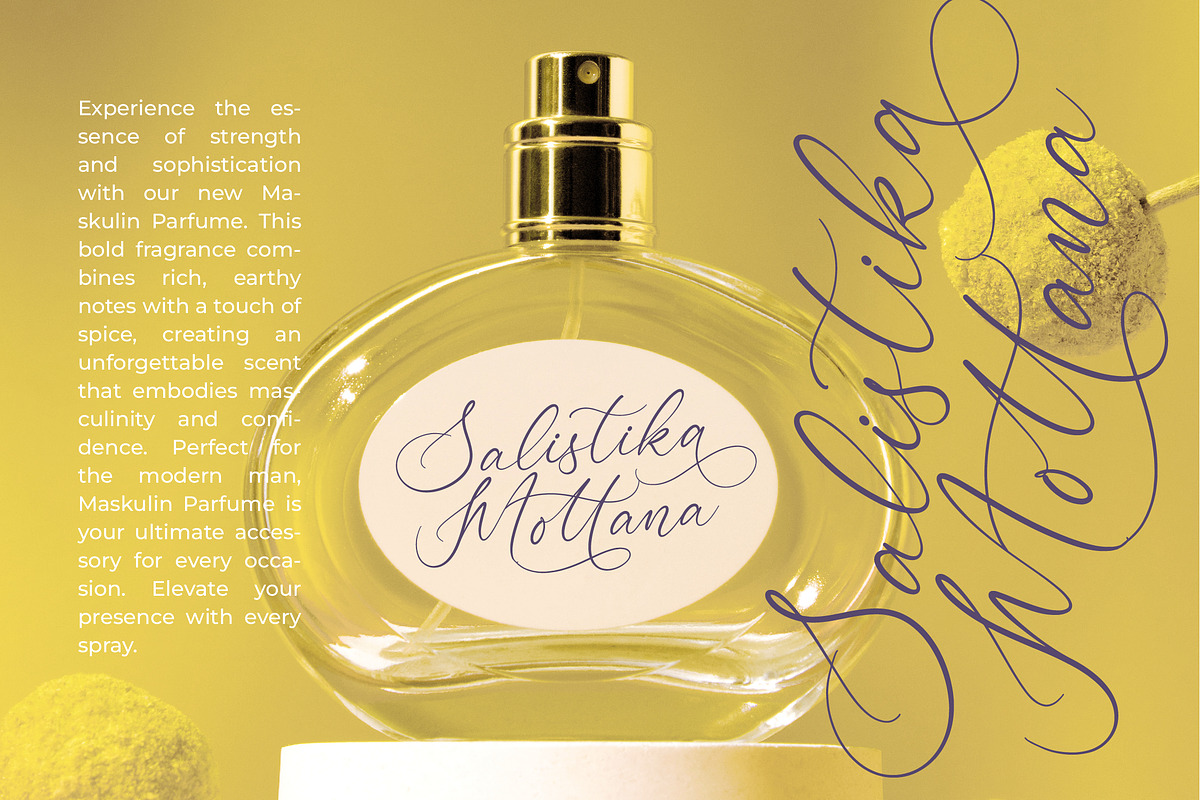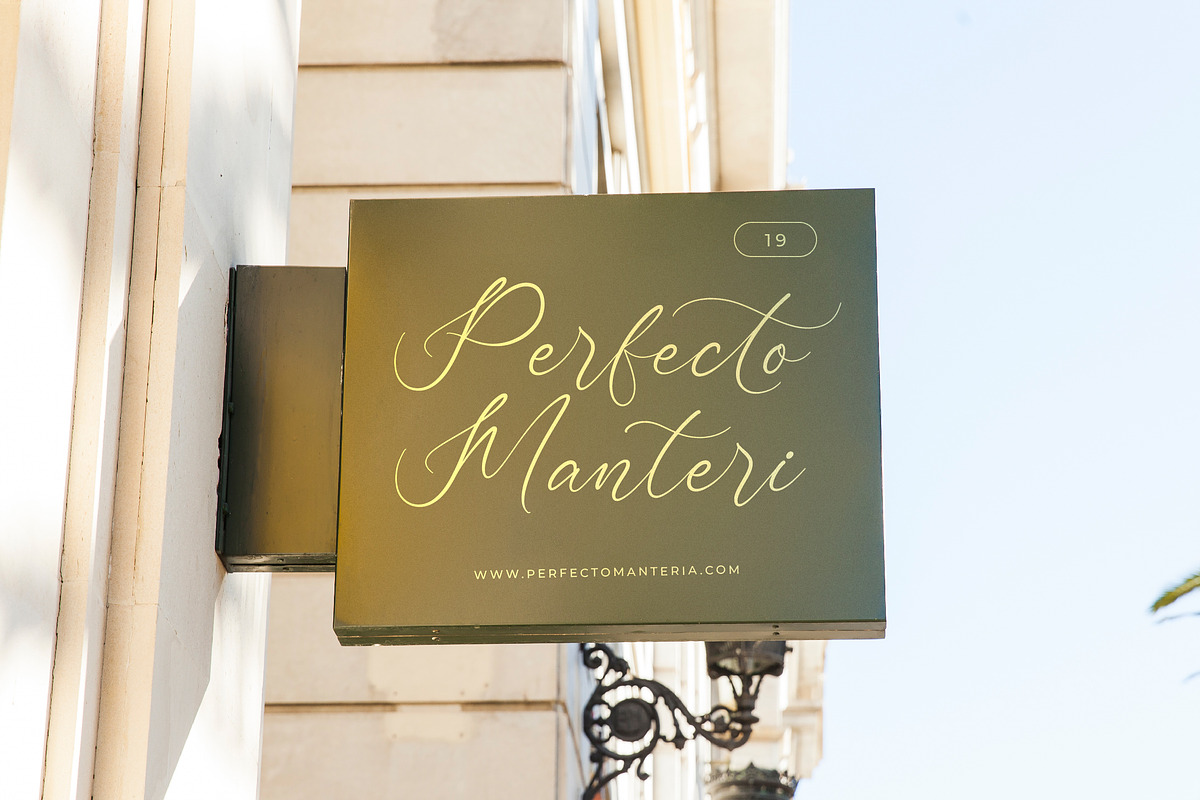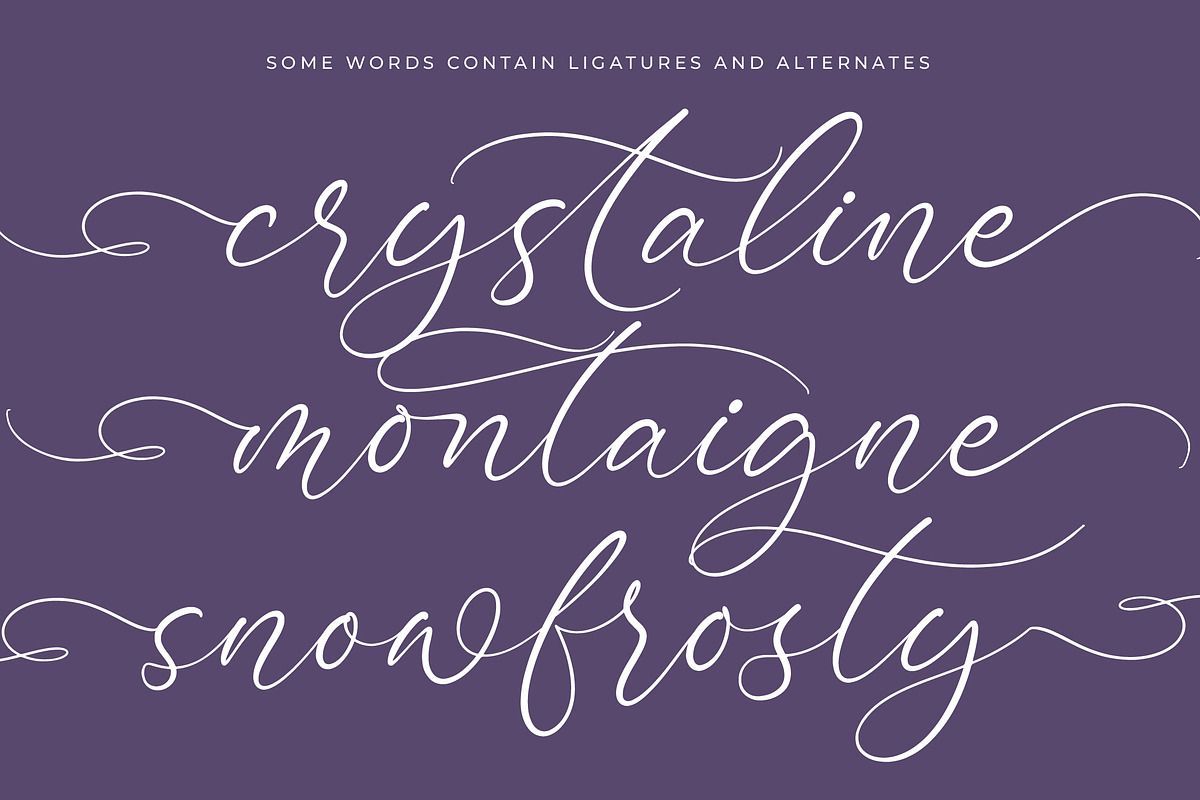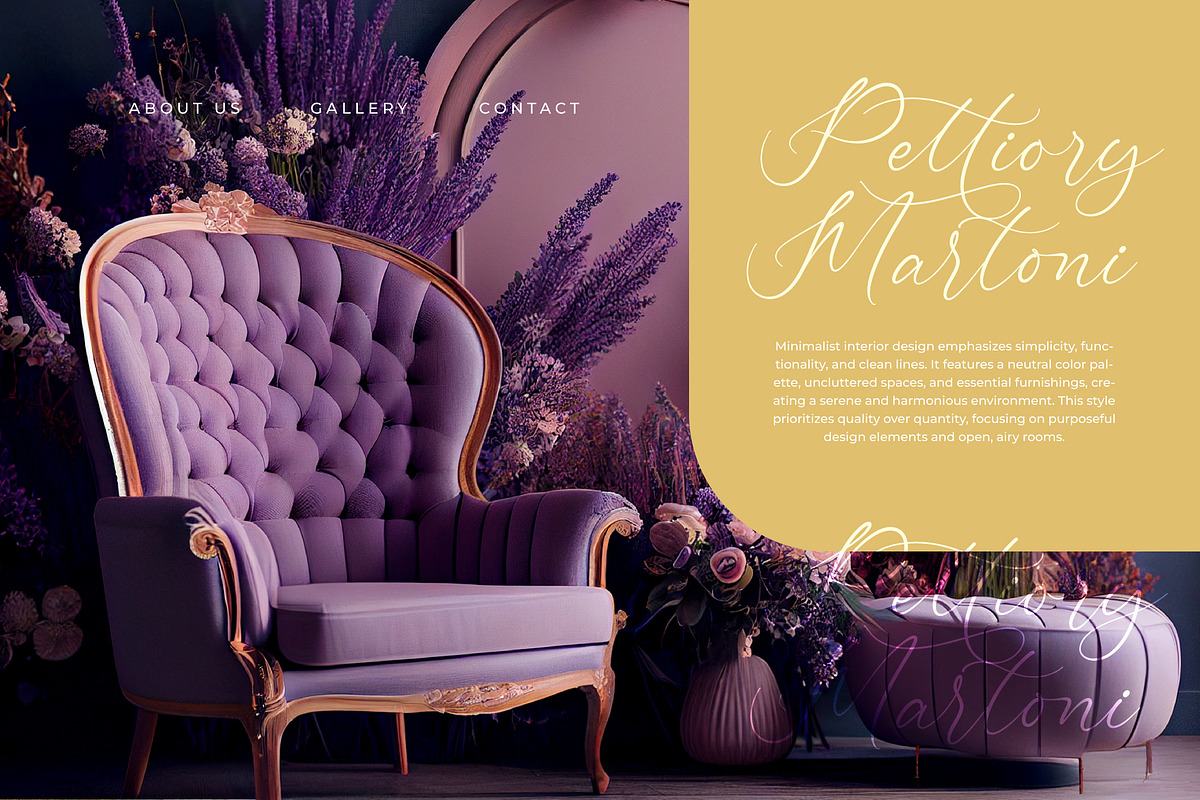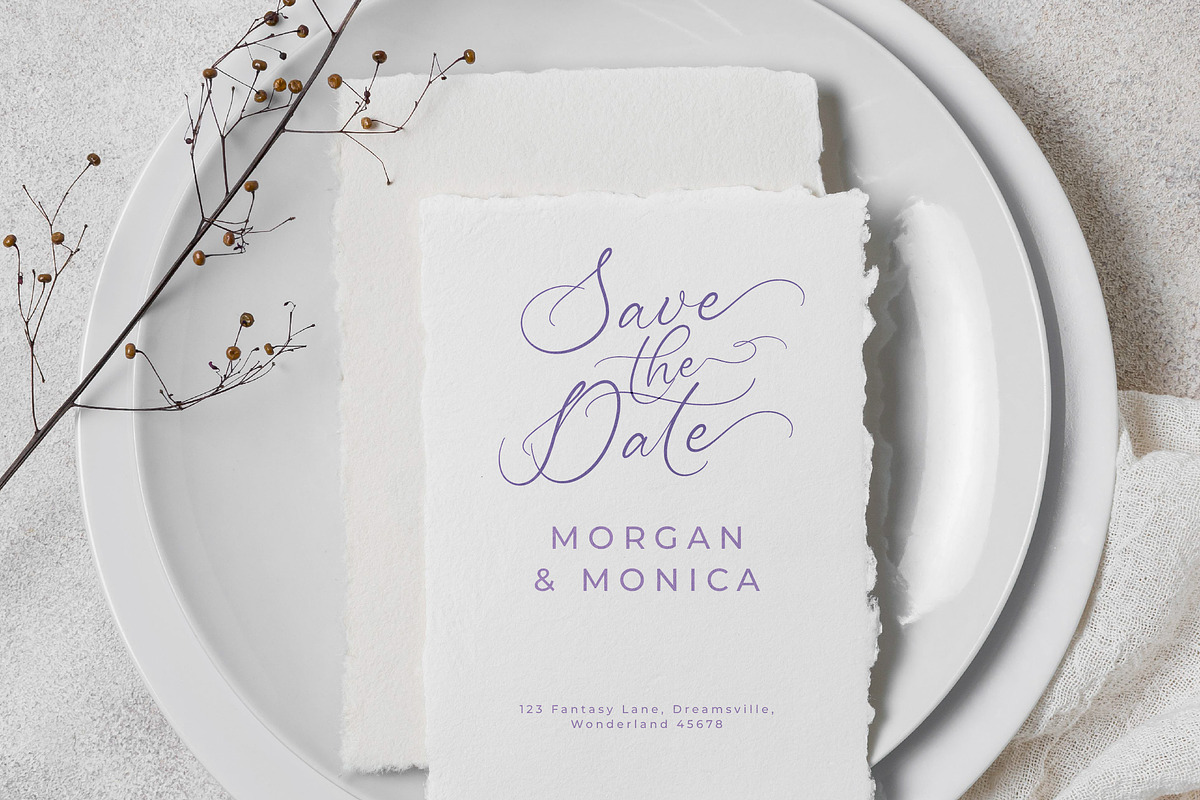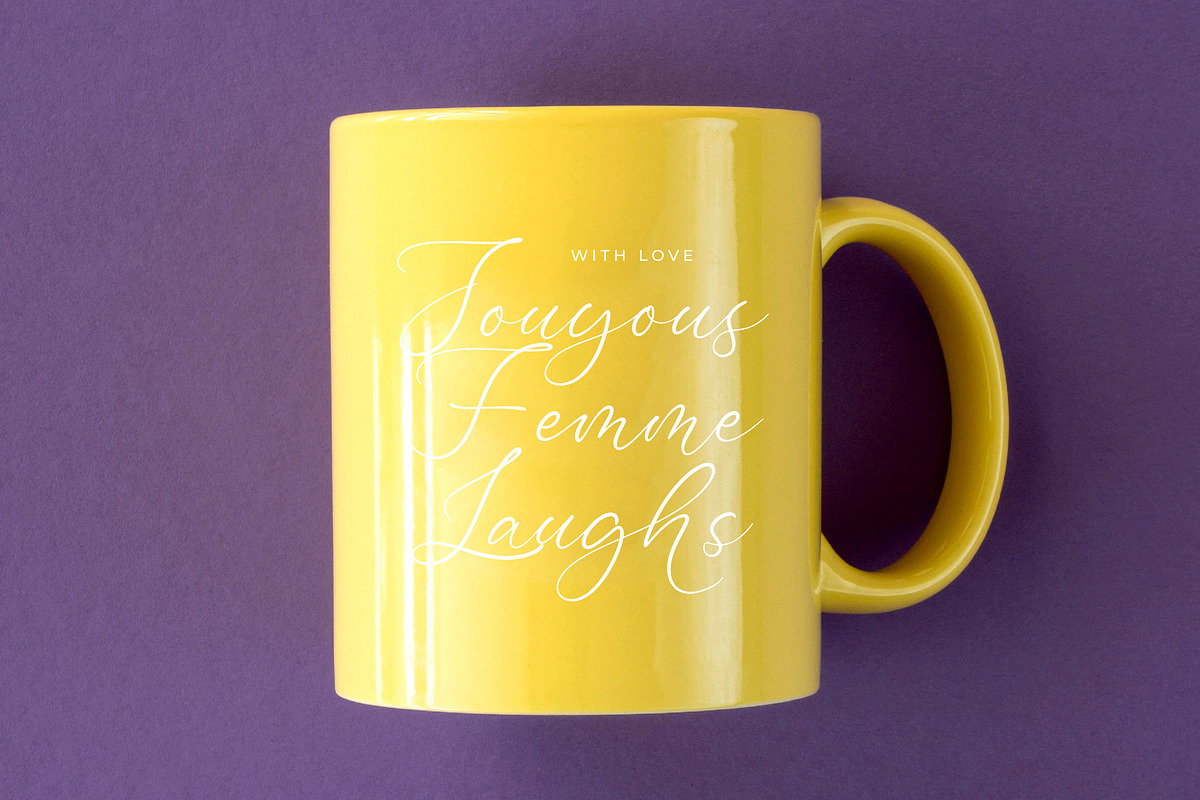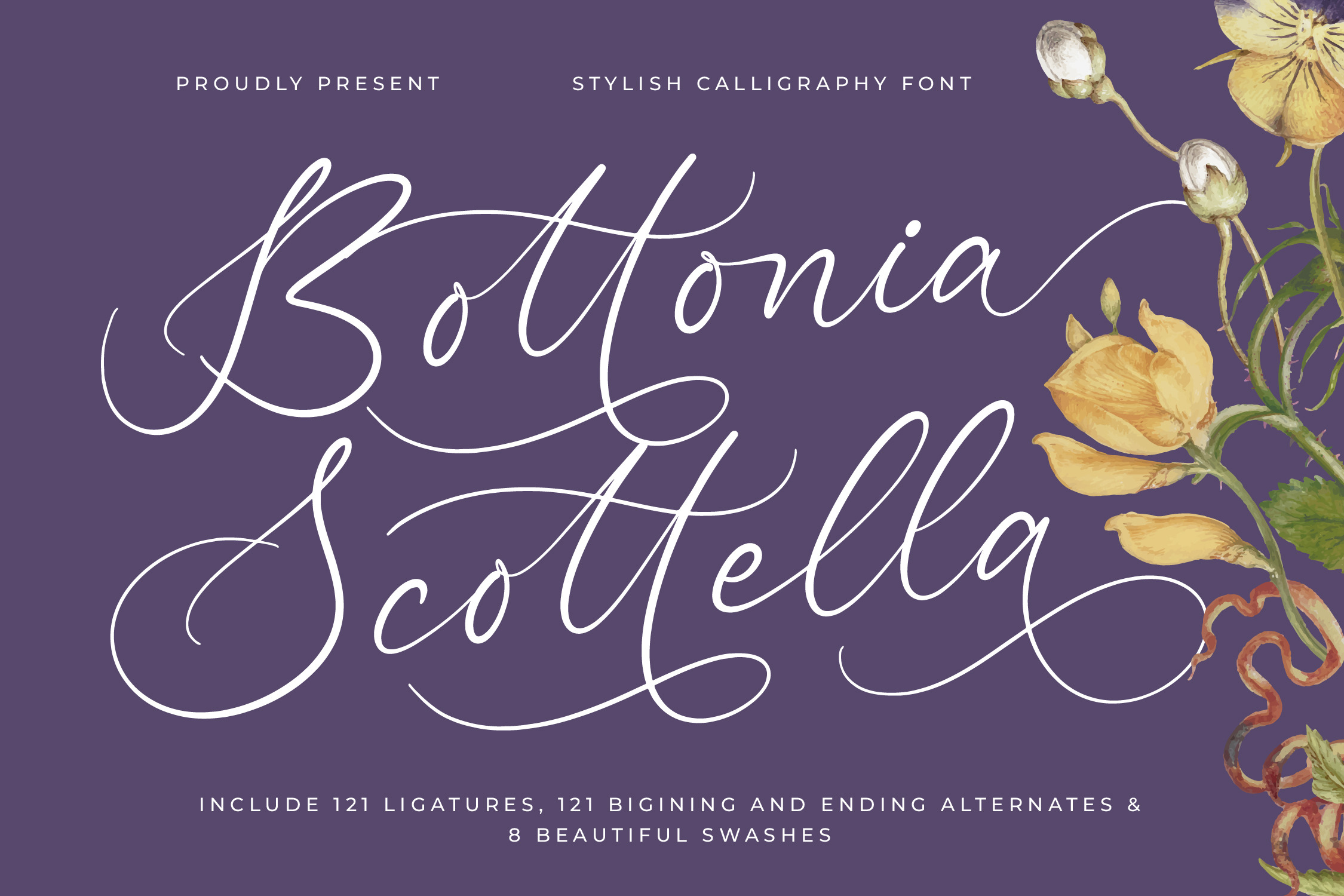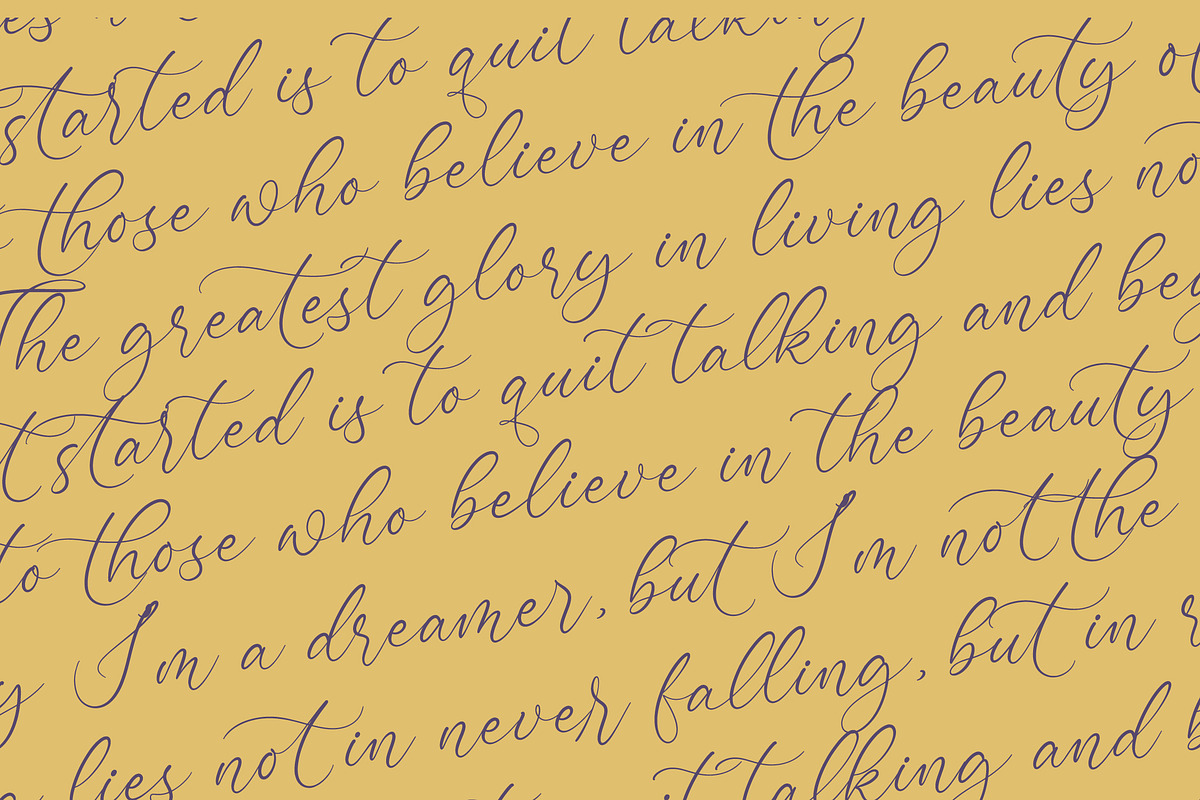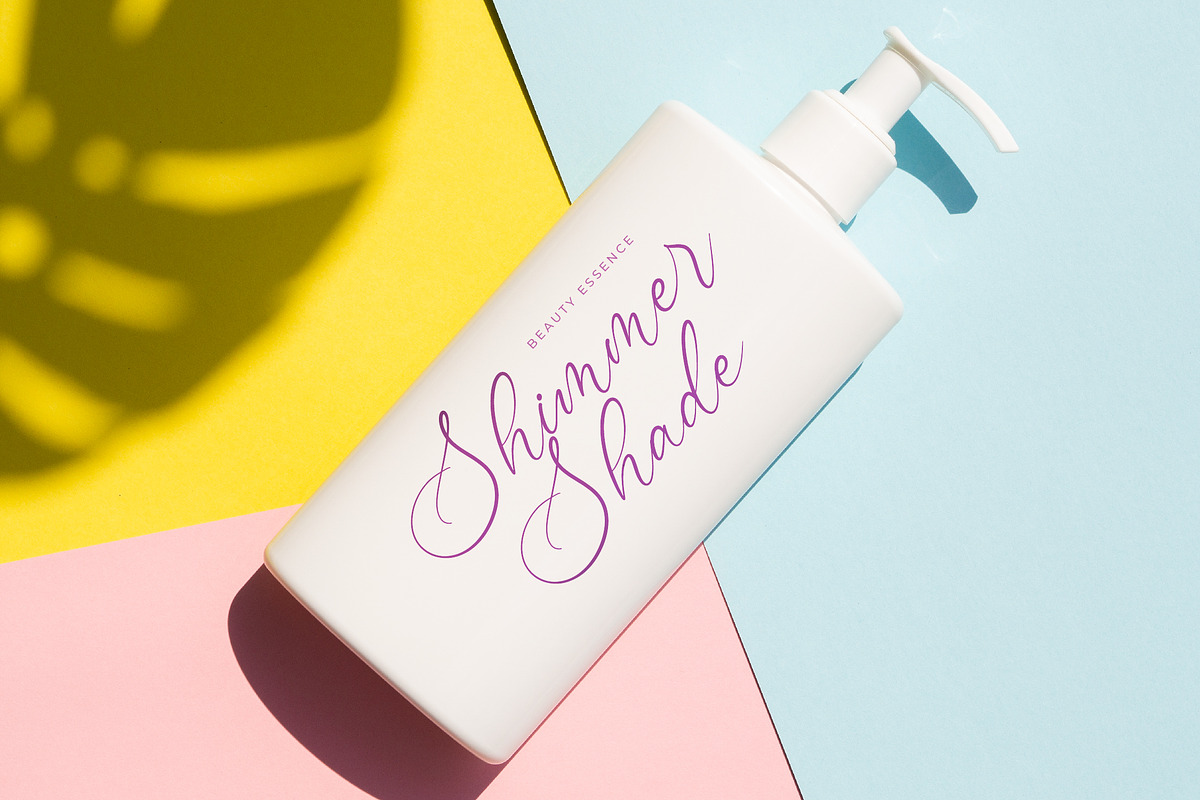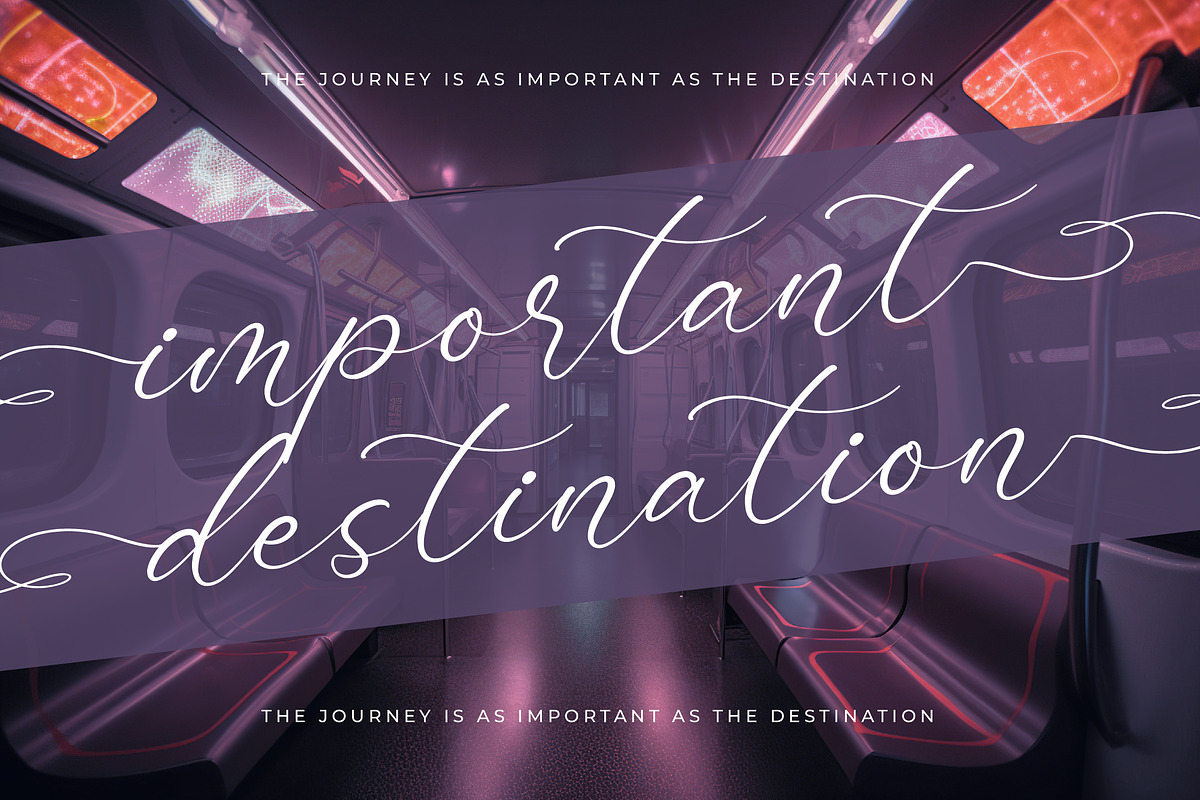
Bottonia Scottella Calligraphy Font
Bottonia Scottella - Stylish Calligraphy Font , from Stylishtype.Co , Suitable for any projects such as: logos, branding projects, homeware designs, product packaging, mugs, quotes, posters, shopping bags, t-shirts, book covers, name card, invitation cards, greeting cards, label, photography, watermark, special events, and all your other luxury and beautiful projects that need a Luxury Script taste.
- 121 Ligature 121 Alternates & 8 Swashes